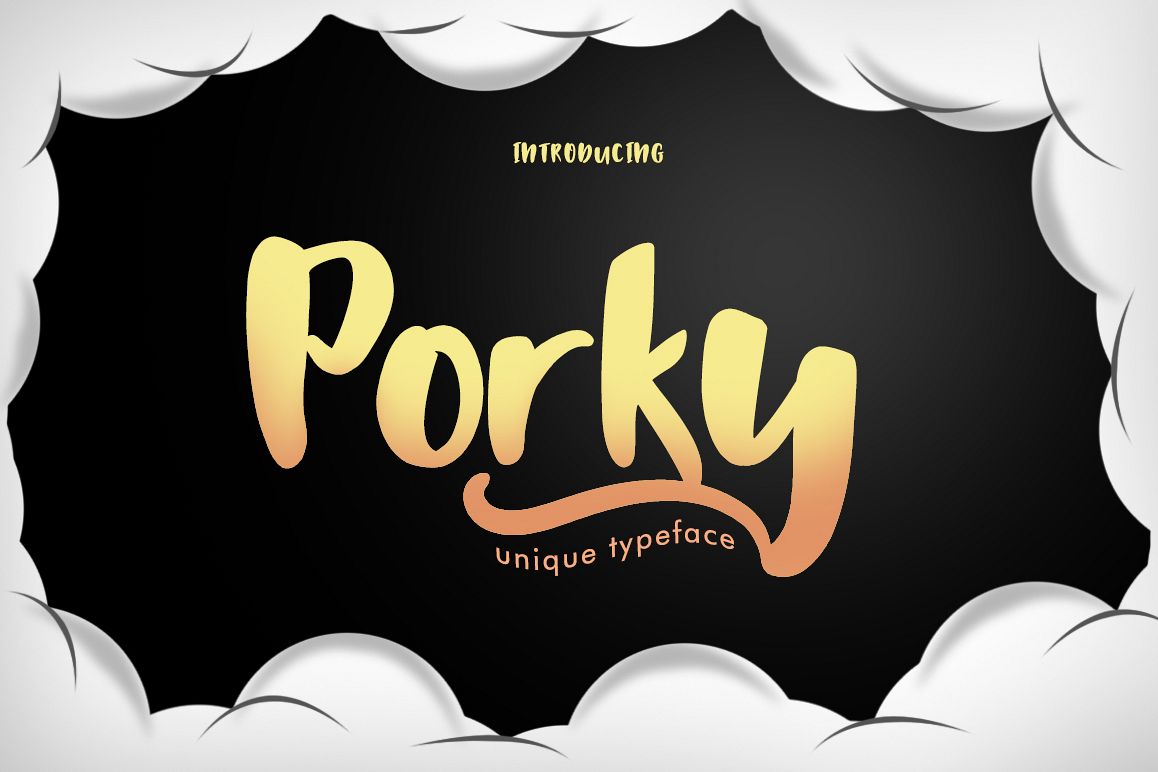
Porky Typeface - a new fresh handmade brush font. perfect using for wedding invitation, event, card, display, logo, greeting card, and more!
Porky Typeface - includes many alternative characters.Is coded with PUA Unicode, which allows full access to all the extra characters without having special designing software.